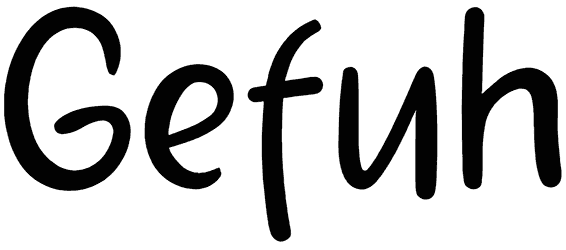
Gefuh Font
When you set a delightful and casual face on your words, the final design will be more friendly and charming. This handwritten font, with its bold and natural letters, can do it, but it doesn’t support numbers. With three weights, Gefuh font will amp up your bakery logo, or other innovative projects, and capture a lot of attention.